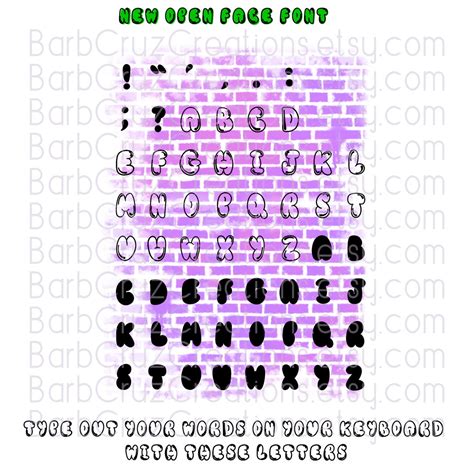
Bubble Letters Keyboard: Fun Fonts for Typing
Readers, have you ever wanted to add a touch of personality to your text messages, social media posts, or even emails? Imagine typing with fun, eye-catching bubble letters, instantly transforming ordinary words into playful expressions. This is where the magic of bubble letter keyboards comes into play! These innovative tools allow you to infuse your digital communication with a dose of creativity, making it stand out from the mundane. As an SEO expert with years of experience analyzing the digital landscape, I've delved deep into the world of bubble letters, and I'm excited to share my insights with you.
The Rise of Bubble Letters: Adding Fun to Text
Bubble letters, with their rounded and playful shapes, have been a staple in childhood art and creativity. But in recent years, they've transcended the boundaries of handwritten notes and found a new home in the digital realm. The advent of bubble letter keyboards has made it incredibly easy to incorporate these whimsical fonts into our daily online interactions.
The Appeal of Bubble Letters: Why They're So Popular
The appeal of bubble letters is undeniable. They're visually engaging, adding a touch of whimsy and charm to any text. Their rounded shapes create a sense of softness and playfulness, making them perfect for conveying emotions like joy, excitement, or even a touch of humor. Whether you're sending a birthday greeting, adding a caption to a photo, or simply wanting to express yourself in a unique way, bubble letters offer a distinct advantage.
The Versatility of Bubble Letters
Bubble letters are incredibly versatile. They can be used for a wide range of purposes, from casual conversations to formal occasions. You can find bubble letter fonts in various styles, colors, and sizes, allowing you to tailor them to your specific needs. From classic bubble letters with a retro feel to modern, stylized versions, there's a bubble letter font for every taste and occasion.
Bubble Letter Keyboard Types: Exploring Your Options
The world of bubble letter keyboards offers a diverse range of options, each with its own unique features and benefits. Whether you're looking for simplicity or advanced customization, there's a keyboard out there that's perfect for you. Let's explore some of the most popular types.
Online Bubble Letter Generators
Online bubble letter generators are a simple and convenient way to create bubble letter text. These websites allow you to input your text, select a font style, and instantly generate bubble letter versions. They're perfect for quick and easy use, ideal for casual messages or social media posts.
Mobile Apps for Bubble Letters
Mobile apps are another popular way to access bubble letter keyboards. These apps offer a wider range of customization options, allowing you to adjust font size, colors, and even add special effects. Many apps also include features like copy and paste, making it easy to share your bubble letter text with others.
Desktop Bubble Letter Software
For those who want more control and customization, desktop bubble letter software is the way to go. These programs offer comprehensive features, allowing you to create professional-quality bubble letter designs. You can adjust every aspect of the text, from font style and size to color, outline, and even shadow effects. Desktop software is perfect for creating graphics, logos, or any other text-based visuals that require a high level of precision and customization.
The Benefits of Using a Bubble Letter Keyboard
Beyond the pure fun and visual appeal, using a bubble letter keyboard offers a number of benefits, both for personal and professional use.
Enhanced Communication
Bubble letters can significantly enhance your communication. They add a unique touch to your messages, making them more engaging and memorable. Whether you're writing a personal note, sending a business email, or creating a social media post, bubble letters can help you stand out and make a lasting impression.
Creative Expression
Bubble letter keyboards provide a fantastic outlet for creative expression. They allow you to explore different font styles, colors, and effects, giving you the freedom to personalize your text and express your unique style.
Increased Engagement
Bubble letters can increase engagement with your content. Their eye-catching nature draws attention and encourages people to read your messages. This is especially beneficial for social media posts, where visual appeal plays a crucial role in attracting likes, shares, and comments.
Tips for Effectively Using Bubble Letter Keyboards
While using a bubble letter keyboard is simple and enjoyable, there are a few tips to keep in mind to ensure you use them effectively and achieve the best results.
Choose the Right Font Style
With so many bubble letter font styles available, it's important to choose one that suits the occasion and message you're trying to convey. Consider the tone and formality of the communication. For casual messages, a playful, rounded font style might be appropriate. For more formal occasions, a more refined bubble letter style might be a better choice.